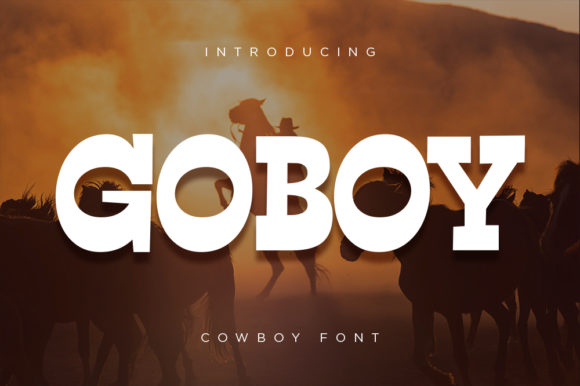
The Designer’s Delight: A Deep Dive into Go Boy Font
Ah, the elusive perfect font. You know, that one design project where everything seems to be falling into place, but the font just isn’t cooperating. I recall working on a wedding invitation design for a client, and no matter how hard I tried, I just couldn’t find the right fit. That was until I stumbled upon Go Boy Font. 💕
Go Boy is a modern display font that has taken my design game to the next level. Its versatility and style have made it a go-to for a wide range of projects, from branding and headings to wedding designs, invitations, signatures, logos, labels, and more!
What I Love About Go Boy Font ✨
• Modern and sleek design: Go Boy Font boasts a contemporary look that’s perfect for designs that need a bit of edge.
• Highly versatile: Whether you’re working on a logo, invitation, or social media graphic, Go Boy Font adapts seamlessly.
• Excellent for headings and titles: The font’s bold and clear structure makes it perfect for grabbing attention.
• Supports OpenType features: This means you get access to advanced typographic features that can elevate your designs.
• ⚠️ May not be suitable for body text: Due to its bold nature, Go Boy Font might not be the best choice for longer blocks of text.
• ⚠️ Limited availability of certain characters: While the font supports OpenType features, some special characters might be missing.
Go Boy Font was crafted with the modern designer in mind. Its creator aimed to produce a font that was not only stylish but also highly functional across various design projects. The inspiration came from the need for a versatile typeface that could seamlessly fit into both digital and print designs.
Q: Is Go Boy Font suitable for body text?
A: While Go Boy Font is stunning for headings and titles, it might not be the best choice for body text due to its bold nature.
Q: Does Go Boy Font support OpenType features?
A: Yes, Go Boy Font supports OpenType features, allowing for advanced typographic styling.